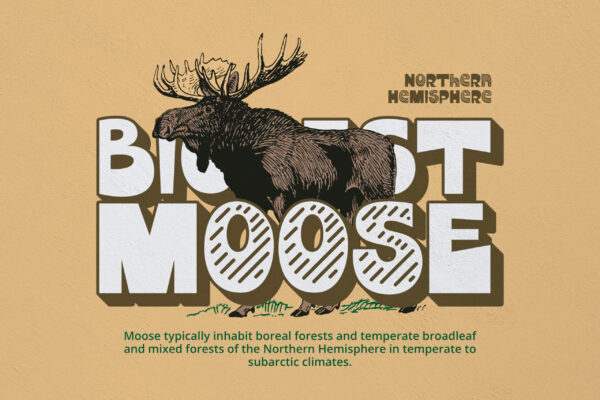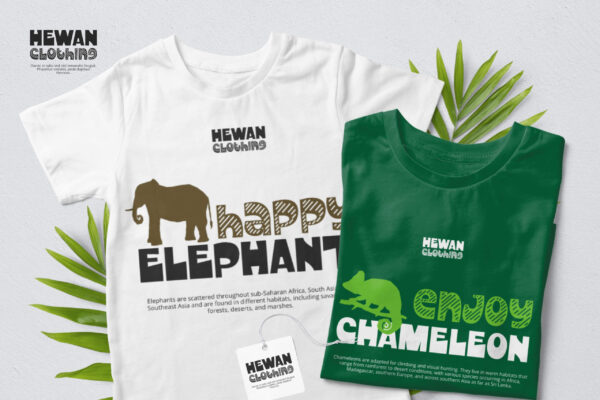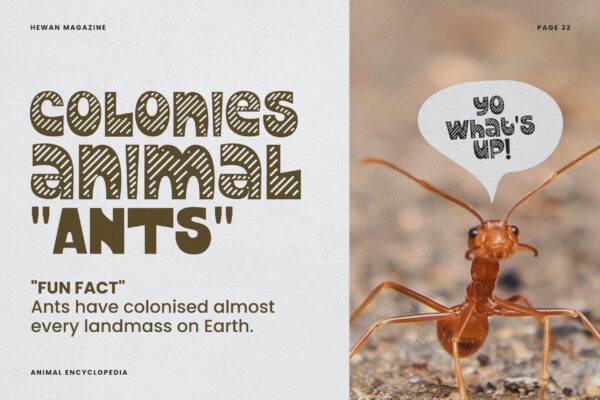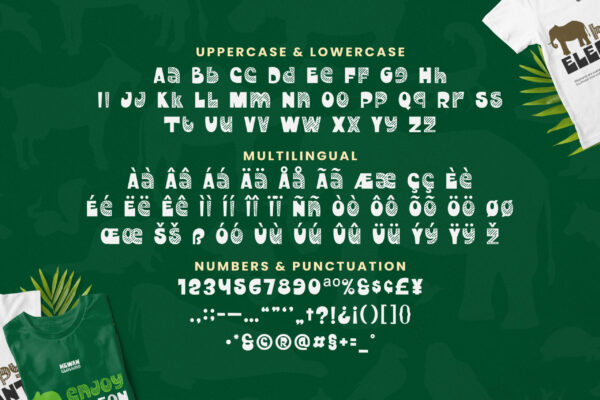
Animalyus is a bold and quirky display font inspired by the world of wildlife. With its playful texture and striped fill, it captures the essence of natural exploration and animal adventures. Each character is crafted with personality, making it an ideal choice for educational materials, children’s books, zoo branding, or eco-themed campaigns that need a fun yet impactful look.
The font comes with uppercase and lowercase letters, multilingual support, numbers, and a full set of punctuation. Whether you’re designing t-shirts, posters, packaging, or editorial content, Animalyus adds a sense of creativity and wilderness that connects instantly with young audiences and nature enthusiasts alike.
Animalyus